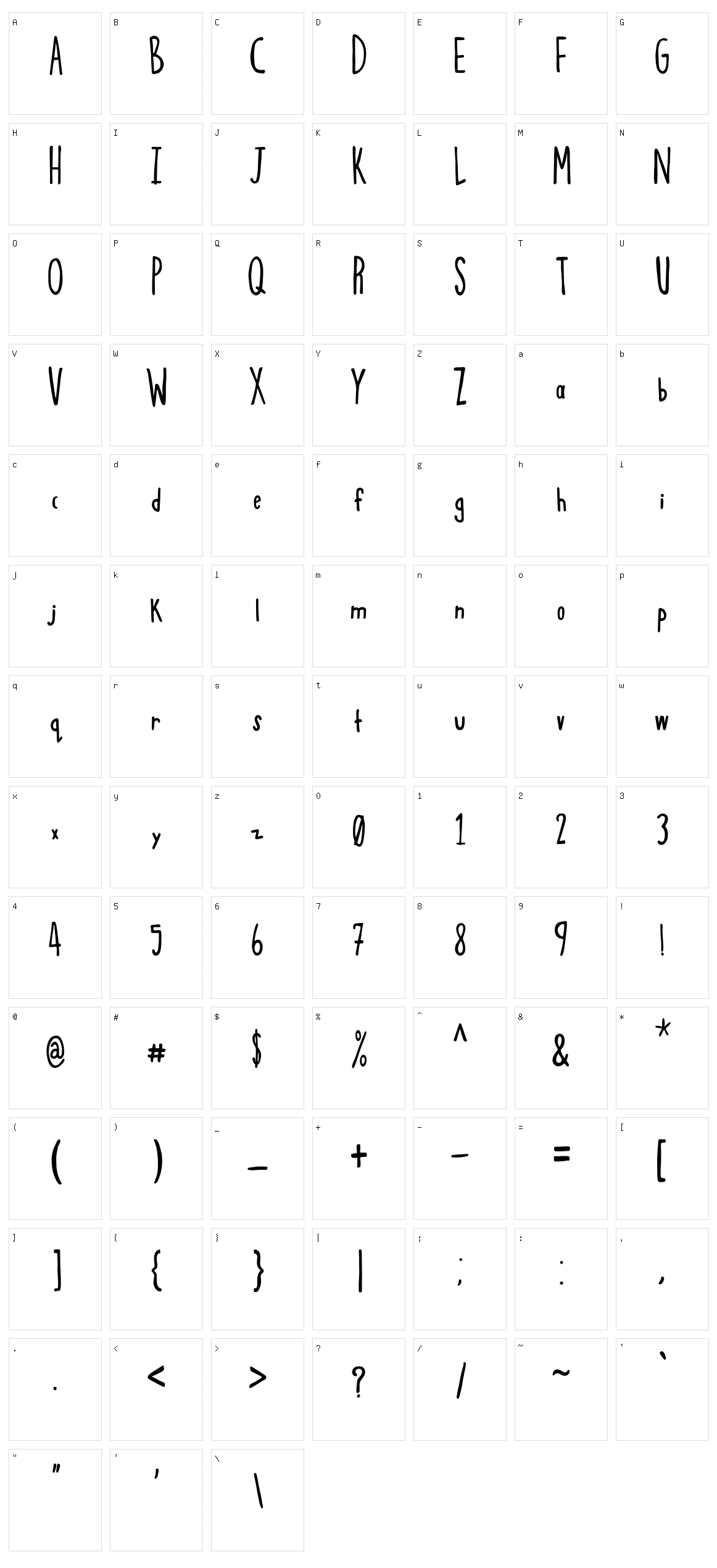
This is my first attempt at creating a font in the last ten years when my original attempt failed miserably. I'm still learning the ins and outs, and therefore the font is not perfect. Since it is supposed to be a handwritten and childlike typeface the imperfections aren't that obvious.
It was designed for use on childcare stationary. I tried including as many accented characters as I could for ease of use.